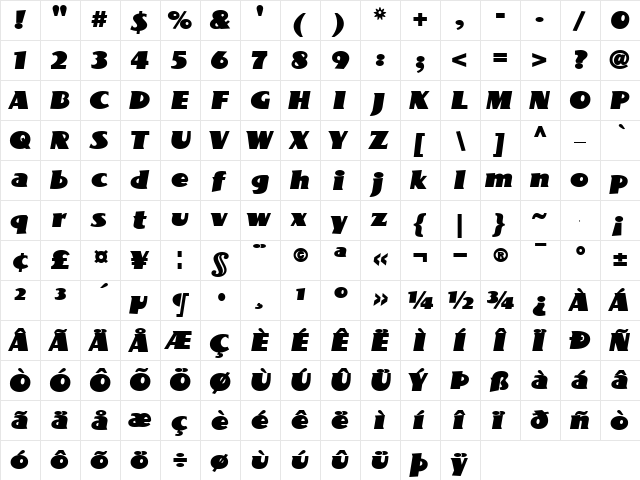
BottleKaps S ExpItalic Regular Font Preview
BottleKaps S ExpItalic Regular
BottleKaps S ExpItalic Regular Font Details
Design Context for BottleKaps S ExpItalic Typeface
BottleKaps S ExpItalic offers clean, dependable letterforms without strong stylistic allegiance, making it a practical choice for designers who need flexibility. The dynamic lean of this cut emphasises speed and emphasis in any layout.
Pro Tip: Try BottleKaps S ExpItalic for annotation and caption copy alongside an upright companion — the contrast in angle creates a dynamic but ordered typographic system.